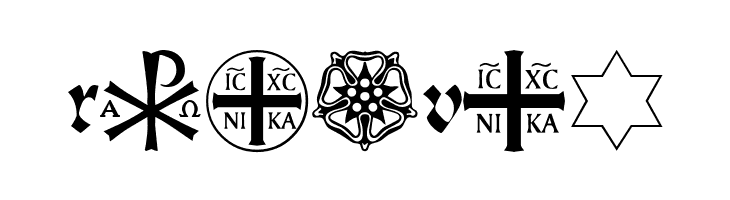
A dynamic and expressive handwritten font with fluid, flowing letterforms.
A bold, playful font with exaggerated, uneven strokes for a whimsical look.
A bold, 3D font with a playful, dynamic style and shadow effect.
A decorative symbol font with diverse Christian cross designs.
A symbol font with diverse Christian cross designs and religious motifs.
A decorative symbol font with numerous Christian cross variations.
A symbol font with diverse Christian cross designs and religious motifs.
A symbol font with diverse Christian cross designs.
A bold, blackletter font with Christian monograms and symbols, ideal for historical themes.
An ornate, medieval-style decorative font with intricate illustrations.
A dynamic, expressive handwritten font with fluid strokes and a natural flow.
A festive serif font with snowflake embellishments, ideal for holiday themes.
A playful and whimsical font with smooth, flowing lines and slightly irregular shapes.
A playful, handwritten font with rounded edges and a casual style.
A playful, hand-drawn font with tall, narrow letters and a whimsical style.
A festive, elegant script font with intricate swirls and loops.
A playful, tall, and narrow font with rounded edges and consistent stroke width.
A tall, slender, and whimsical font with a playful style.
Playful, tall sans-serif with rounded terminals and festive style.
A bold, decorative font with a festive, angular design.
A whimsical, hand-drawn sans-serif with tall, playful letters.
Tall, narrow, handwritten sans-serif with playful character.
A whimsical, festive font with elegant curls and a handwritten calligraphy style.
A playful, hand-drawn style with tall, narrow letters and a whimsical feel.
Whimsical Christmas-themed dingbat illustrations.
A bold, calligraphic font with dramatic curves and artistic flair.
A bold, decorative font with an inline, three-dimensional style.
A modern, geometric font with bold, angular letterforms and a retro-futuristic vibe.
A bold, decorative font with a retro inline design.
A bold, modern font with geometric elements and a futuristic style.
A lively handwritten font with fluid, dynamic strokes and a casual elegance.